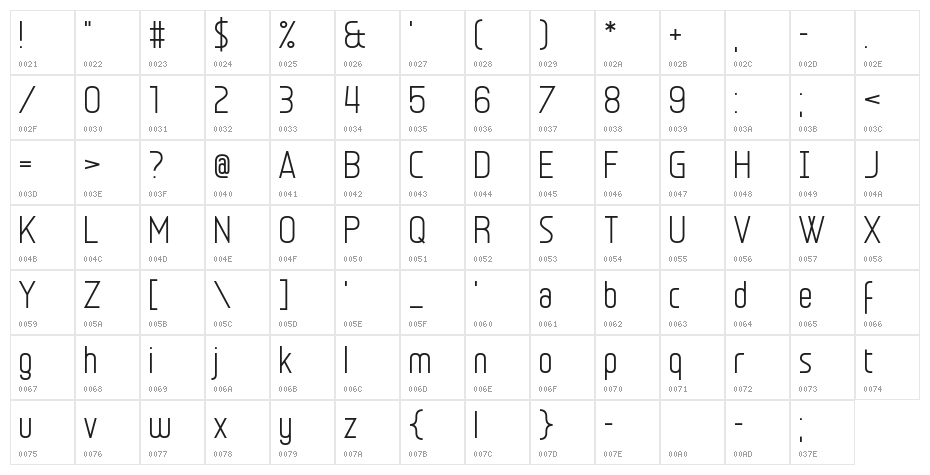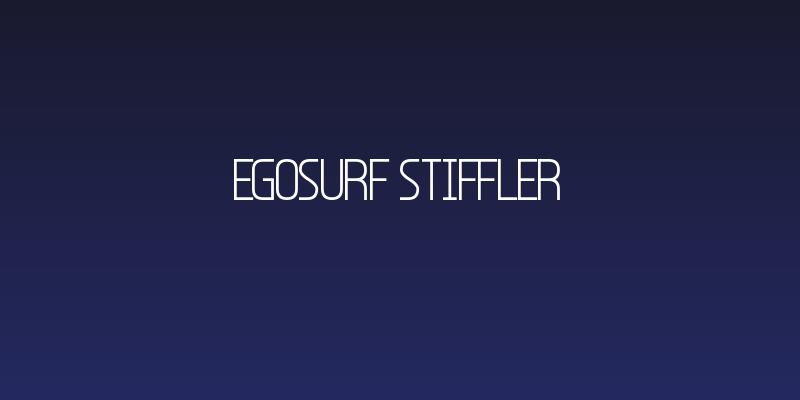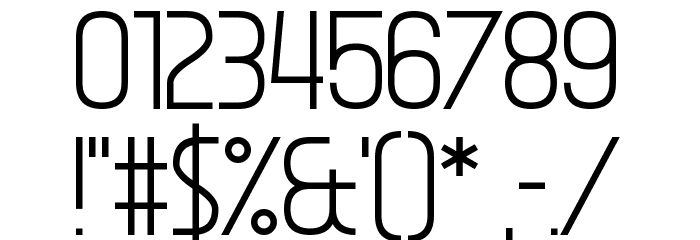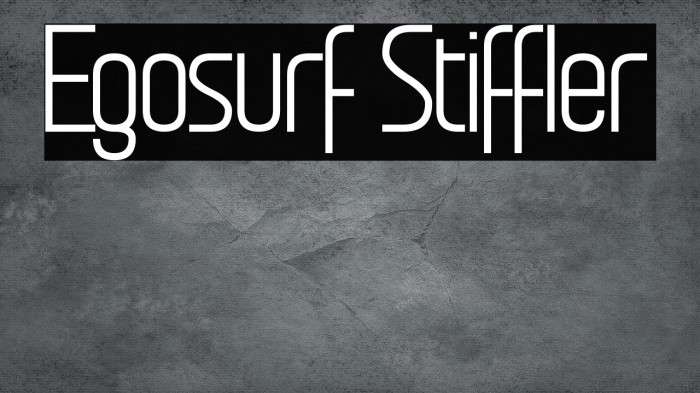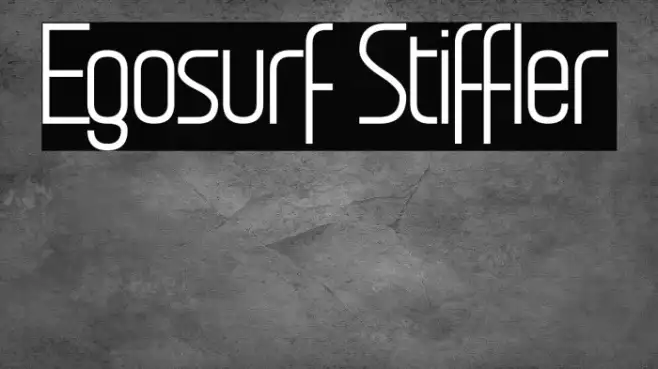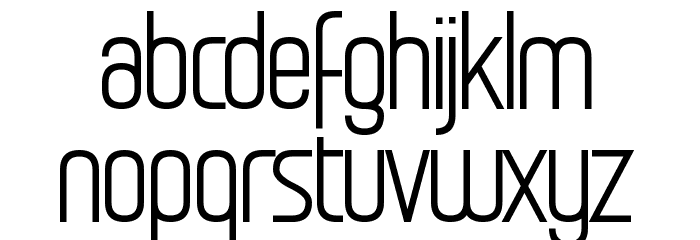
Egosurf Stiffler Font
Egosurf Stiffler Description
This font features a modern, geometric design with clean lines and a structured appearance. The characters are tall and narrow, giving a sleek and contemporary feel. The uppercase letters are uniform in height, while the lowercase letters maintain a consistent baseline, enhancing readability. The numerals are distinct and match the overall style, ensuring clarity in numerical data. Special characters are well-integrated, maintaining the font's cohesive look. The overall aesthetic is minimalist, making it suitable for a variety of design applications.